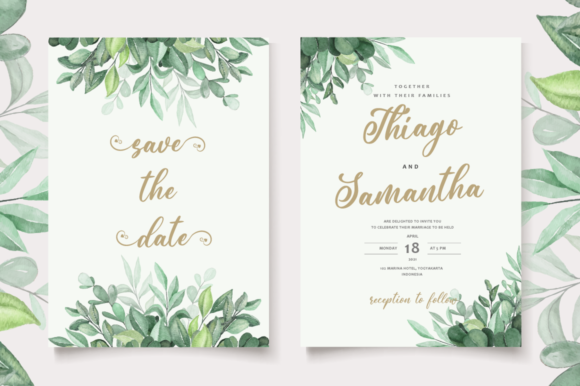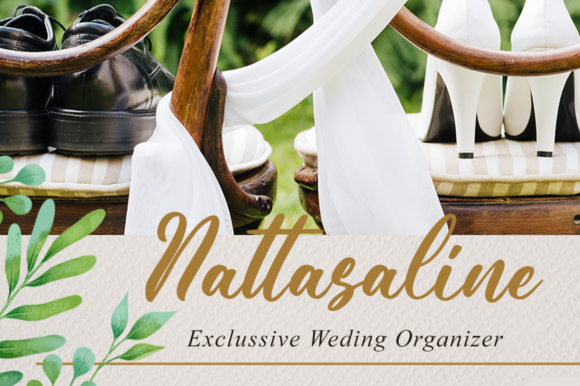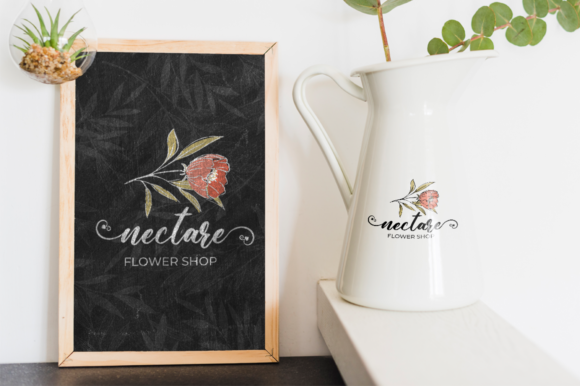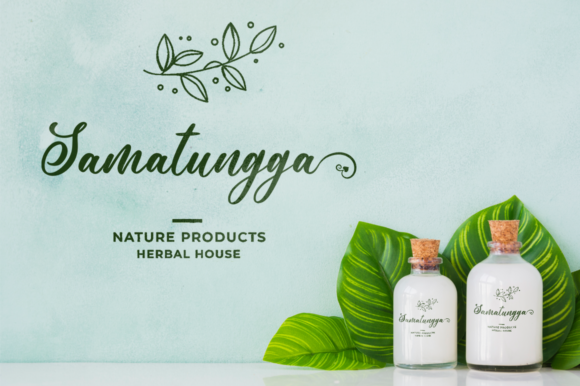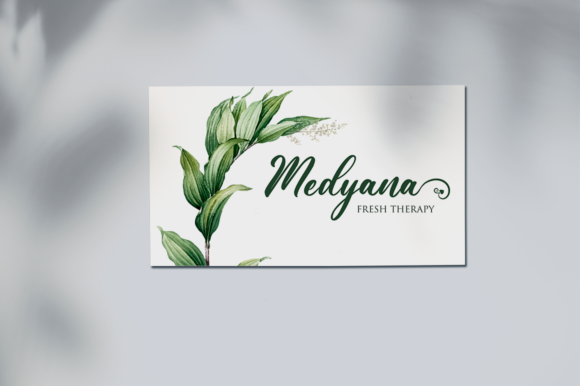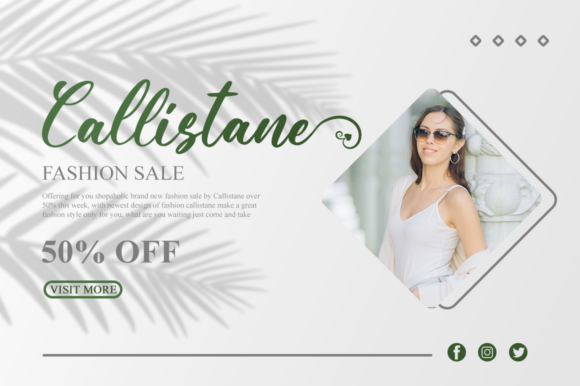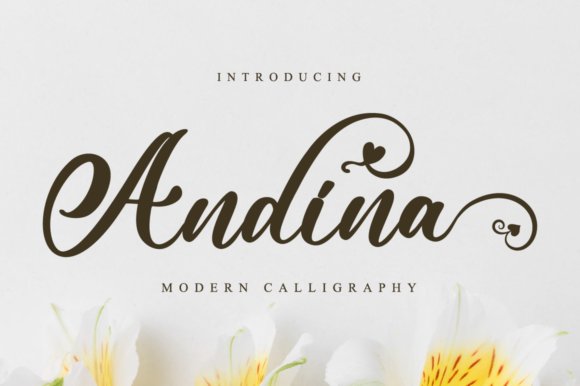
Introducing Andina Font: Elevate Your Designs with Luxury and Elegance
Are you looking for a font that can add a touch of luxury and sophistication to your design projects? Look no further than Andina Font, a beautiful light handwritten font that is sure to make your designs stand out. With its unique feel and stunning impact, Andina Font is the perfect choice for designers and crafters who want to create high-end designs that exude elegance and refinement.
What Makes Andina Font So Special?
Andina Font is a light handwritten font that boasts a distinctive and stylish look. Its elegant lines and curves make it perfect for use in a variety of design projects, from wedding invitations and branding materials to packaging and advertising. The font’s unique feel is sure to capture the attention of your audience and leave a lasting impression.
The Power of PUA Encoding
One of the standout features of Andina Font is its PUA (Private Use Area) encoding. This means that you can access all of the font’s glyphs and swashes with ease, giving you unparalleled flexibility and creative control. With PUA encoding, you can mix and match different glyphs and swashes to create unique and eye-catching designs that showcase your creativity and style.
Andina Font is incredibly versatile, making it suitable for use in a wide range of design projects. Here are just a few ideas to get you started:
- Wedding invitations and stationery: Add a touch of luxury and romance to your wedding designs with Andina Font.
- Branding and packaging: Use Andina Font to create high-end branding materials and packaging that reflect your brand’s values and personality.
- Advertising and marketing: Make your advertising and marketing materials stand out with Andina Font’s elegant and sophisticated look.
- Signage and displays: Use Andina Font to create eye-catching signage and displays that grab attention and leave a lasting impression.
Why Choose Andina Font?
So why should you choose Andina Font for your design projects? Here are just a few reasons:
- Unique and stylish look: Andina Font boasts a distinctive and elegant look that is sure to set your designs apart.
- PUA encoding: With PUA encoding, you can access all of the font’s glyphs and swashes with ease, giving you unparalleled creative control.
- Versatility: Andina Font is incredibly versatile, making it suitable for use in a wide range of design projects.
- Luxury and sophistication: Andina Font exudes luxury and sophistication, making it perfect for high-end designs.
Tips for Using Andina Font
Here are a few tips for getting the most out of Andina Font:
- Experiment with different glyphs and swashes: With PUA encoding, you can mix and match different glyphs and swashes to create unique and eye-catching designs.
- Pair with other fonts: Andina Font pairs beautifully with other fonts, so don’t be afraid to experiment with different combinations.
- Use in combination with images: Andina Font looks stunning when used in combination with images, so consider using it to add a touch of elegance to your designs.
Andina Font is a beautiful light handwritten font that is sure to elevate your designs to the next level. With its unique feel, stunning impact, and PUA encoding, it’s the perfect choice for designers and crafters who want to create high-end designs that exude luxury and sophistication. Whether you’re working on a wedding invitation, branding materials, or advertising campaign, Andina Font is sure to make your designs stand out. So why wait? Download Andina Font today and start creating stunning designs that showcase your creativity and style!